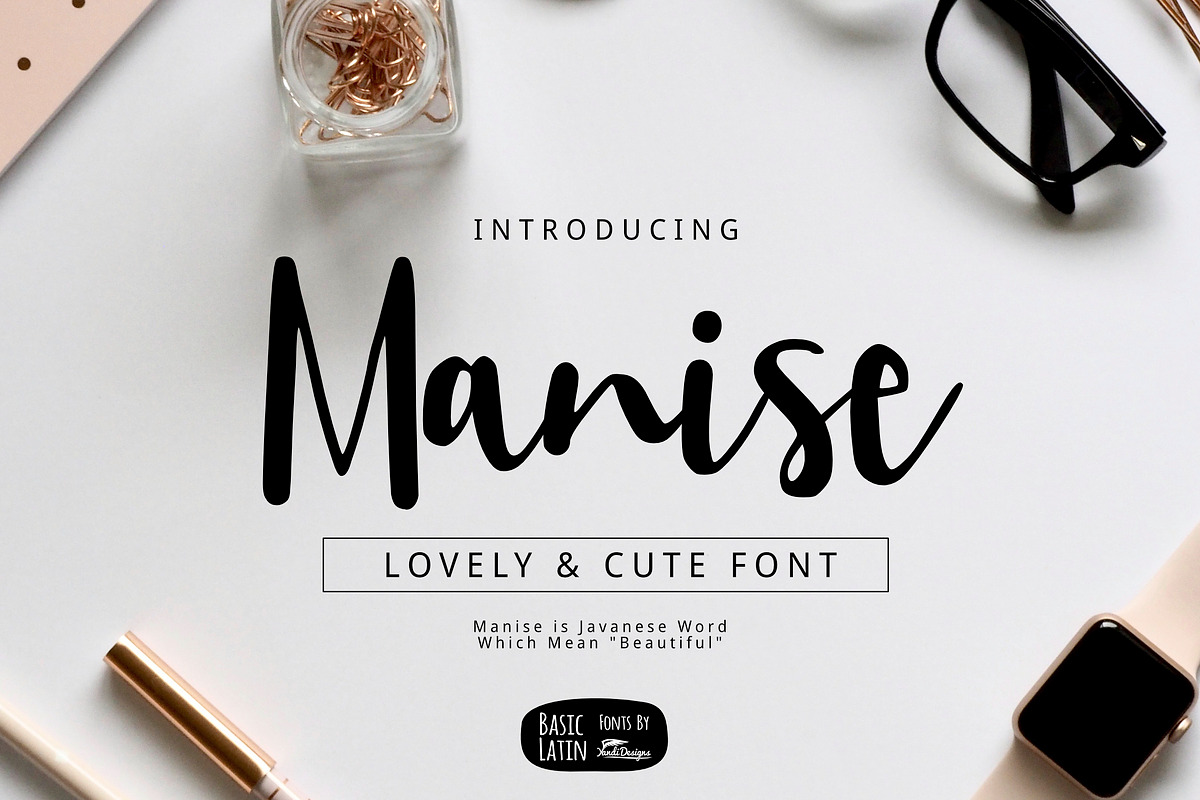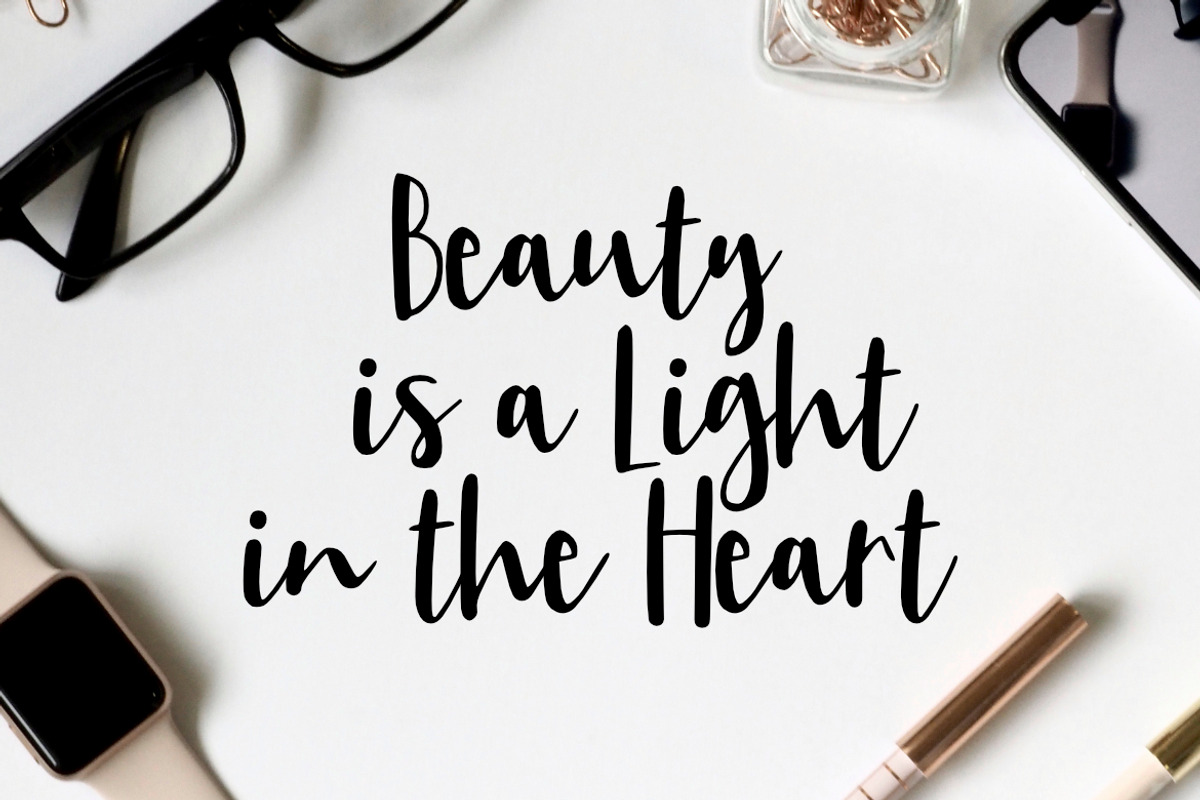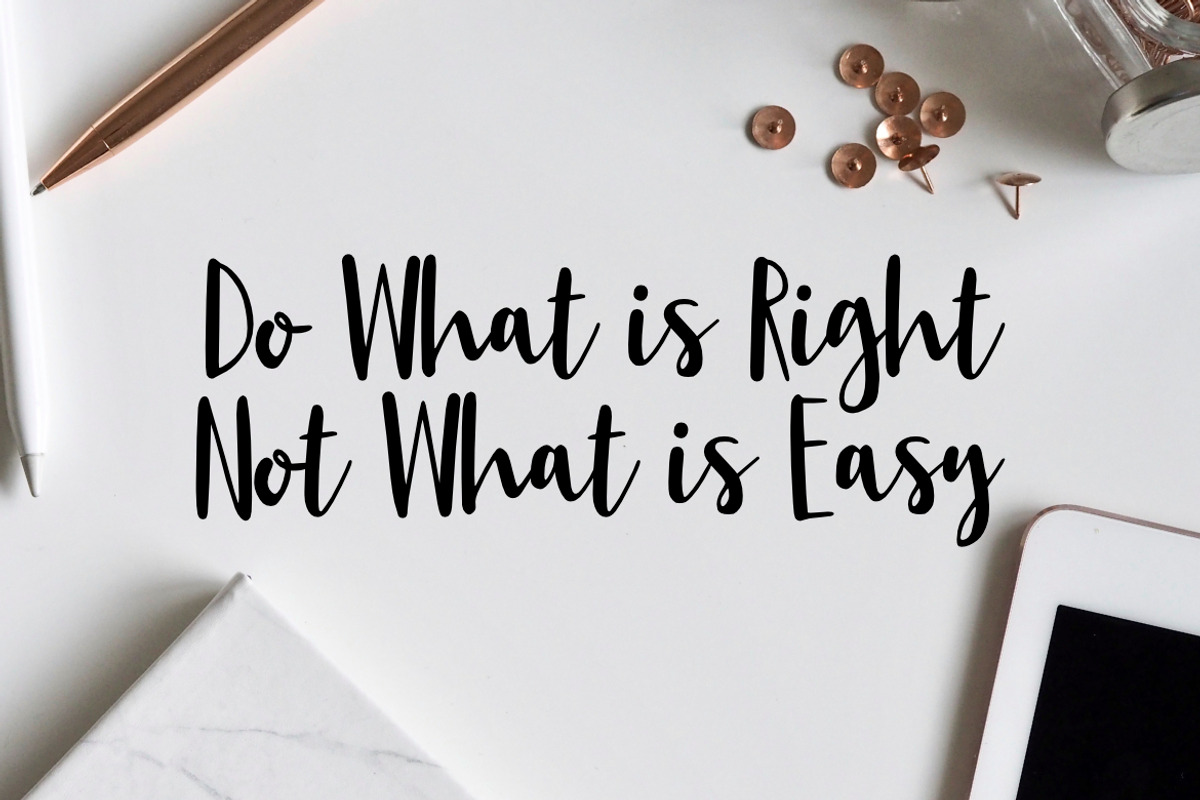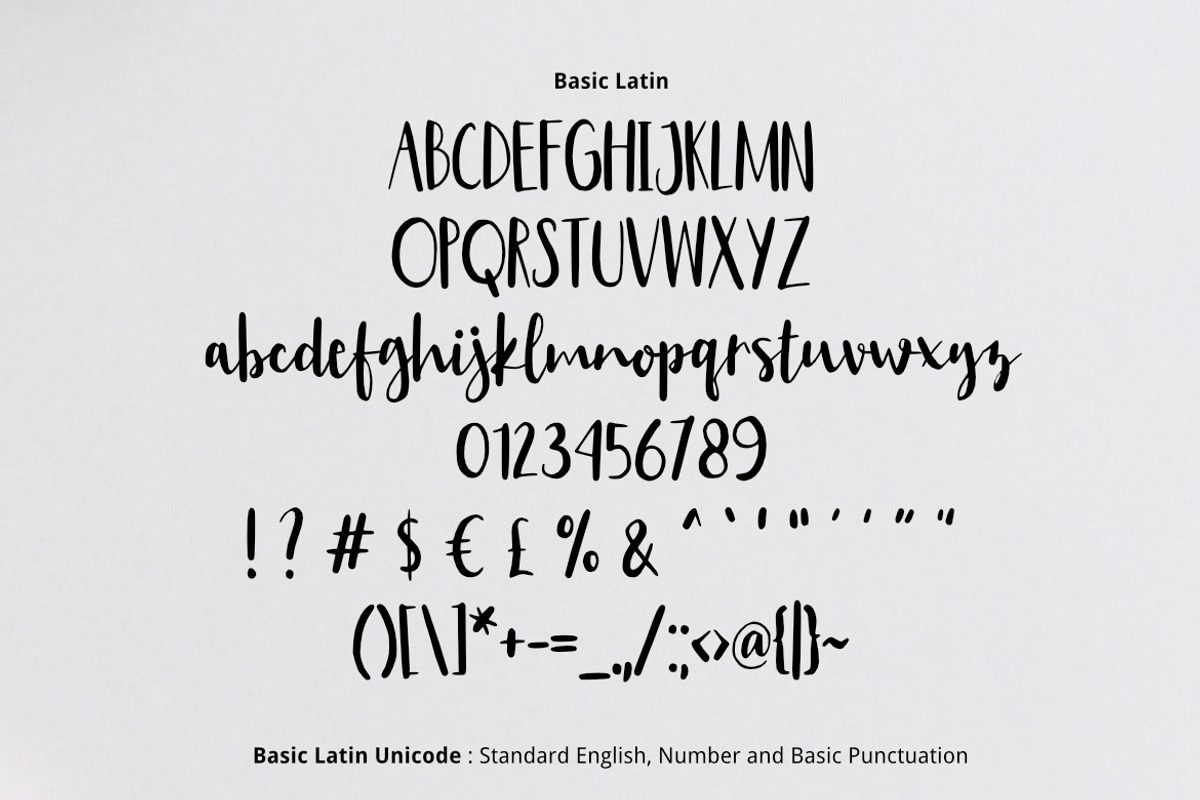
Manise Lovely Script Font
Manise font is simple beautiful multipurpose handmade font , suitable for many project children book, quotes, logo , heading , title etc.
Manise Lovely Script Font by YandiDesigns fits naturally into Branding, posters, packaging, typography.